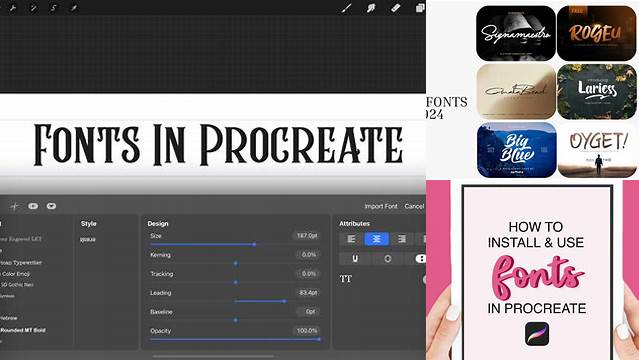
H2: Understanding the Importance of Fonts in Procreate
Alright, before we get our hands dirty with downloading, let's chat about why fonts are so darn important in Procreate. Think about it: fonts aren't just about text; they're about expression. They set the tone, convey the mood, and can completely transform the vibe of your artwork. Imagine creating a whimsical children's illustration with a super serious, blocky font. It wouldn't quite work, would it? That's where the magic of font selection comes in. Procreate fonts give you the power to add that extra layer of personality to your designs. Whether you're creating logos, social media graphics, illustrations with text, or even just adding a signature, the right font can make all the difference. Choosing the perfect font can enhance your work and make it more appealing to your audience. Plus, having a diverse font library allows you to experiment with different styles and aesthetics. A well-chosen font can complement your artwork, provide visual harmony, and convey a message that resonates with your viewers. Think of it this way: fonts are the silent narrators of your digital art. They speak volumes without saying a word. In the realm of digital art, the selection of the correct fonts is essential because it enhances the visual appeal and improves communication. Imagine a stunning piece of art with a font that clashes with the overall theme. It would ruin the entire artistic expression. The correct fonts emphasize the emotions and messages that the artist wishes to portray in their work. You will use fonts for text elements to make it visually attractive. Moreover, fonts can create a sense of cohesion within the artwork. Fonts provide the flexibility to experiment with various styles, and they enable the artist to match the tone of their work. Ultimately, using fonts in Procreate isn't just about adding text; it's about adding another layer of creativity and expressing yourself in a way that resonates with your audience. The proper use of fonts may completely change your artwork, making it stand out from the crowd.
H3: The Creative Power of Typography
Let's go a bit deeper into the creative potential of typography. Typography is much more than just picking a font; it's an art form in itself. It’s about the relationship between the letters, the space around them (leading, kerning, tracking), and how they interact with each other and the overall design. When you download new fonts into Procreate, you're not just adding letters; you're adding a whole new set of visual tools to your arsenal. Think about how a bold, sans-serif font can convey strength and modernity, while a delicate script font can evoke elegance and romance. These choices aren't accidental; they're deliberate decisions that shape the viewer's experience. Using typography effectively means considering things like readability (making sure your text is easy to read), hierarchy (using different font sizes and weights to guide the eye), and visual harmony (ensuring that your fonts complement the overall design). A well-designed typographic composition can draw the viewer's eye, create visual interest, and communicate your message in a clear and compelling way. Moreover, the correct use of typography can improve your design, so that it becomes visually pleasing and easy to read. A bold and clean font conveys clarity and precision, while a script font will make your artwork more personable. Typography provides the tools for effective communication through text. In your artwork, you want to ensure your texts complement the overall design and that the viewer focuses on the text. Understanding the nuances of typography allows you to not only select the right fonts but also to manipulate them in creative ways. By adjusting the spacing, size, and weight of your text, you can create dynamic and engaging compositions that enhance your artwork and leave a lasting impression on your audience. Typography is a crucial component of visual communication, as it plays a key role in influencing how the artwork is understood by the viewer.
- Behance and Dribbble: These are great platforms for finding fonts created by independent designers. Many designers offer free fonts as part of their portfolios or to promote their work. You might find some real gems here! They also have a good collection of curated fonts, and many are free to use. You can also contact the creators and check if the fonts are compatible with your current projects.
H3: Understanding Font Licenses and Usage Rights
Okay, guys, this is super important. Before you download and use a font, you must understand its license. Font licenses determine how you can use a font – whether it's for personal projects only, for commercial use, or if there are any restrictions. The last thing you want is to accidentally violate a license and get into trouble! Most websites will specify the font's license. Common licenses include:
- Personal Use Only: These fonts can only be used for non-commercial projects. If you're creating art for fun or personal projects, these are fine. However, you can't use them for anything that generates income (like logos for a business). Always read the rules.
- Commercial Use: These fonts are allowed to be used for commercial projects, including logos, branding, and marketing materials. However, some commercial licenses may still have limitations, so always check the fine print! Some fonts also have restrictions on the number of users or the projects you can use them for. Check the license. Not all fonts have the same permissions.